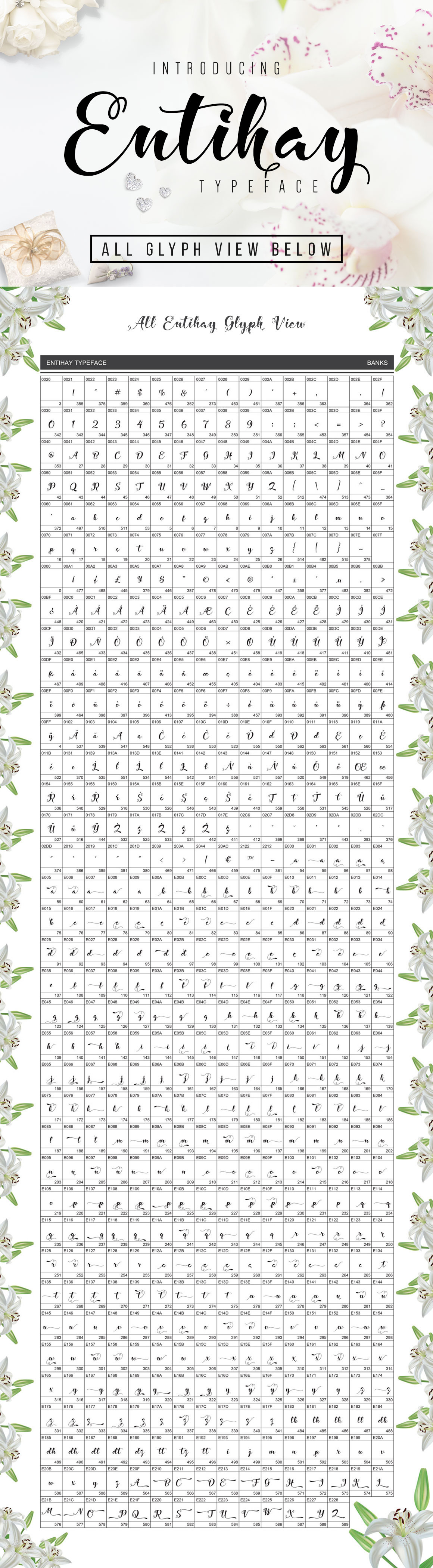
Entihay Typeface
Entihay Typeface is a beautiful handwriting based script. Suitable for Logotype, posters, wedding invitations, greeting cards, design of water-based paints, correspondence, and a variety of other presentation purposes.
- Standard ligatures
- Stylistic sets